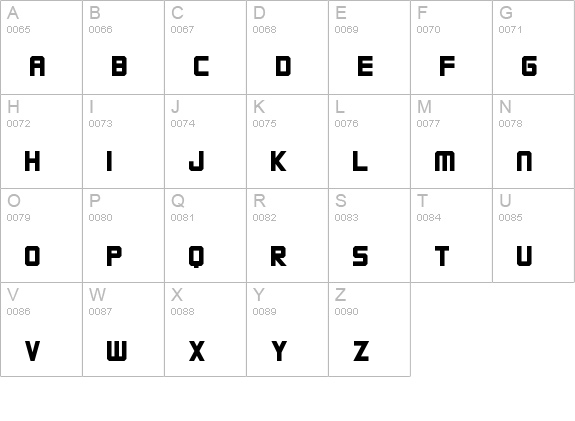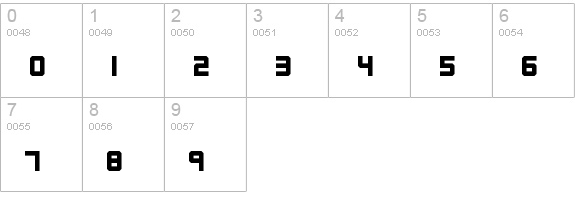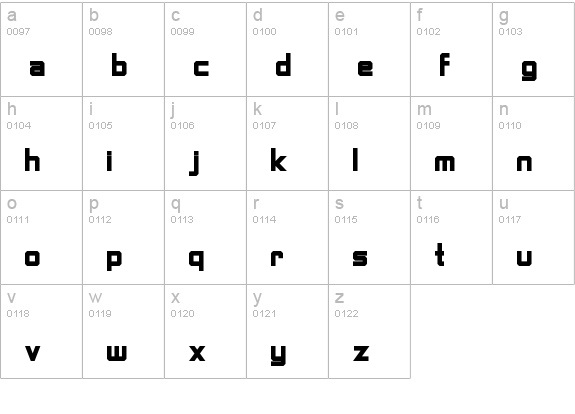
Fighting Force Font Details
The Fighting Force font is a bold and dynamic typeface that exudes strength and power. With its sharp edges and commanding presence, this font is perfect for creating eye-catching headlines and attention-grabbing designs. Whether you're looking to convey a sense of action and intensity or simply want to make a bold statement, Fighting Force has you covered. Best of all, this font is freely available to download at FontsMarket.com, making it easy to add a touch of forceful flair to your projects without breaking the bank. Don't miss out on the opportunity to unleash the power of Fighting Force in your designs today!